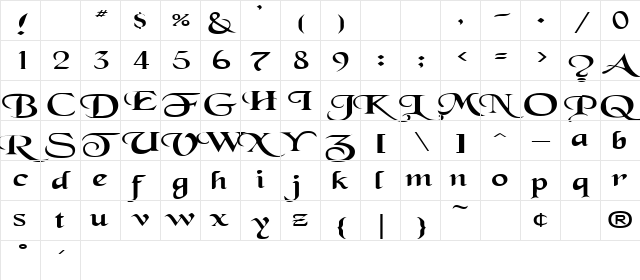
SwordsmanExtended Regular
Design Context for SwordsmanExtended
SwordsmanExtended is a composed and adaptable typeface that performs quietly and consistently across a wide range of design contexts.